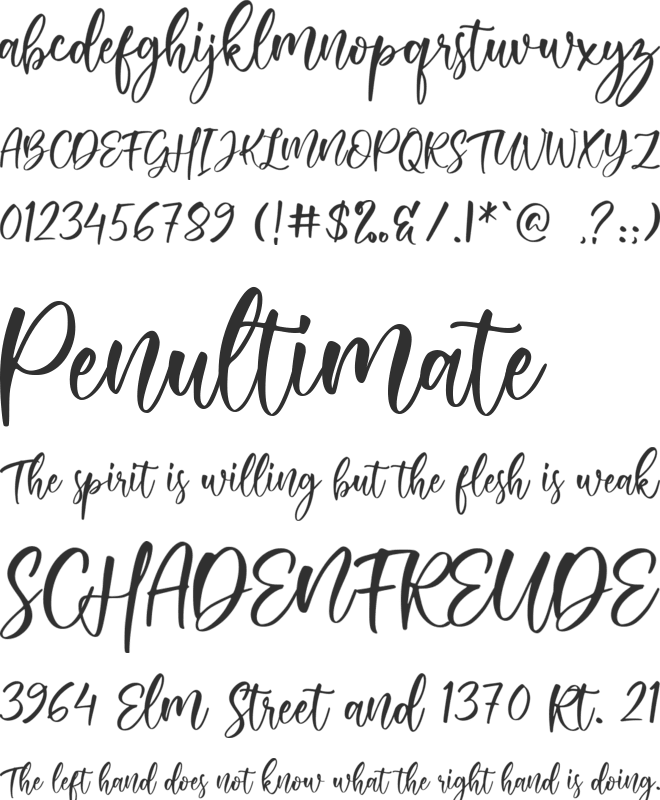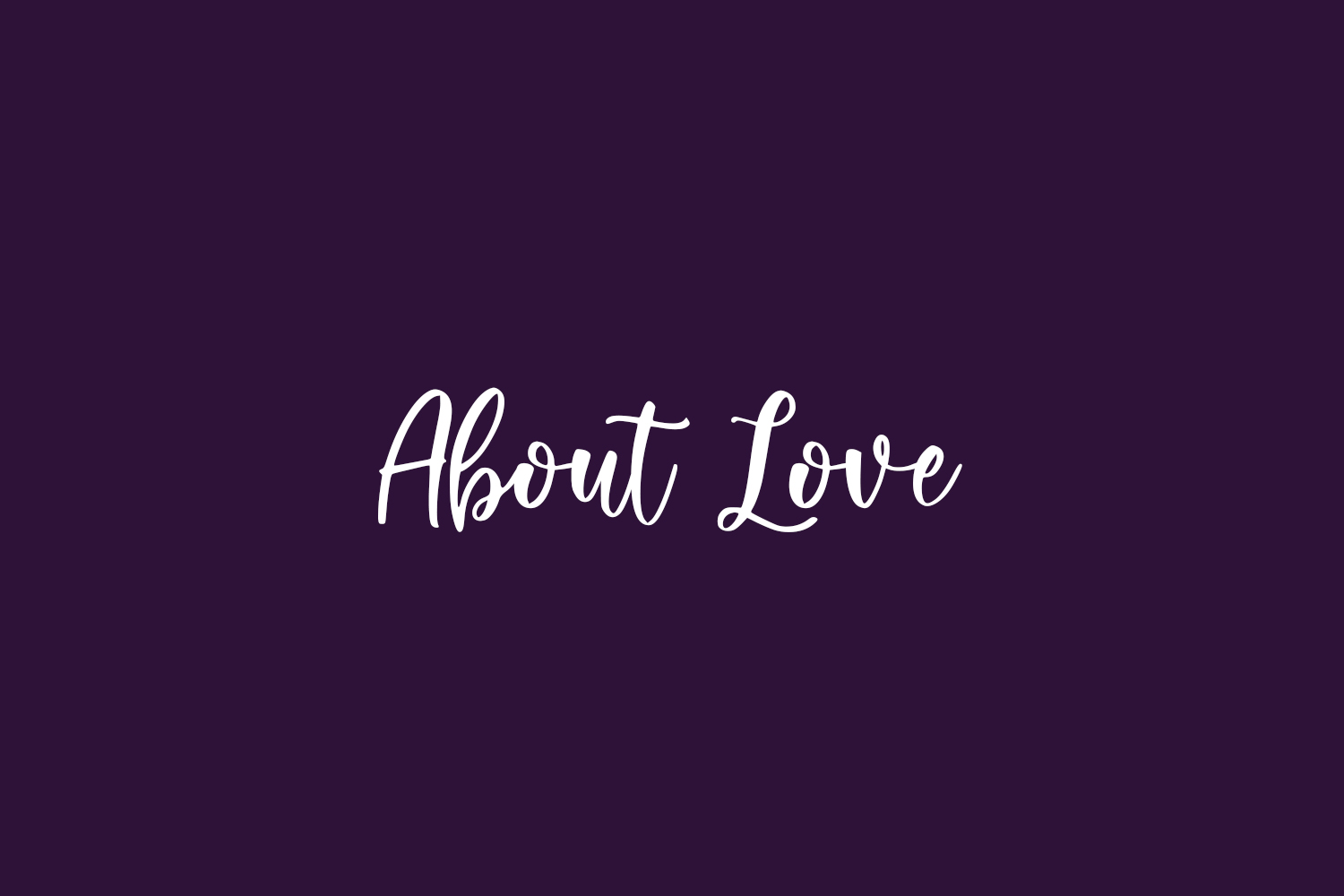
About Love Font
About Love Font - Perfect for weddings, valentine's day, or any romantic project. 739,817 downloads (61 yesterday) 15 comments. Every font is free to. Web 1 to 15 of 1341 results. Click to find the best 1,342 free fonts in the love style. Web explore our diverse collection of free love fonts. About love à € by raffasyad studio.
Perfect for weddings, valentine's day, or any romantic project. 739,817 downloads (61 yesterday) 15 comments. Click to find the best 1,342 free fonts in the love style. Web 1 to 15 of 1341 results. About love à € by raffasyad studio. Web explore our diverse collection of free love fonts. Every font is free to.
Click to find the best 1,342 free fonts in the love style. Every font is free to. Web explore our diverse collection of free love fonts. Perfect for weddings, valentine's day, or any romantic project. Web 1 to 15 of 1341 results. 739,817 downloads (61 yesterday) 15 comments. About love à € by raffasyad studio.
About love à € by raffasyad studio. Click to find the best 1,342 free fonts in the love style. Every font is free to. Web 1 to 15 of 1341 results. Perfect for weddings, valentine's day, or any romantic project.
Web explore our diverse collection of free love fonts. Every font is free to. 739,817 downloads (61 yesterday) 15 comments. Perfect for weddings, valentine's day, or any romantic project. Web 1 to 15 of 1341 results.
Click to find the best 1,342 free fonts in the love style. 739,817 downloads (61 yesterday) 15 comments. Web 1 to 15 of 1341 results. Every font is free to. About love à € by raffasyad studio.
About Love Font
Perfect for weddings, valentine's day, or any romantic project. 739,817 downloads (61 yesterday) 15 comments. About love à € by raffasyad studio. Every font is free to. Web 1 to 15 of 1341 results.
Every font is free to. About love à € by raffasyad studio. Click to find the best 1,342 free fonts in the love style. Web explore our diverse collection of free love fonts. 739,817 downloads (61 yesterday) 15 comments.
About love à € by raffasyad studio. Every font is free to. Click to find the best 1,342 free fonts in the love style. Web 1 to 15 of 1341 results. Web explore our diverse collection of free love fonts.
739,817 downloads (61 yesterday) 15 comments. Click to find the best 1,342 free fonts in the love style. Web 1 to 15 of 1341 results. Web explore our diverse collection of free love fonts. Every font is free to.
About love à € by raffasyad studio. 739,817 downloads (61 yesterday) 15 comments. Every font is free to. Web explore our diverse collection of free love fonts. Click to find the best 1,342 free fonts in the love style.
About love à € by raffasyad studio. Web 1 to 15 of 1341 results. 739,817 downloads (61 yesterday) 15 comments. Every font is free to. Click to find the best 1,342 free fonts in the love style.
Perfect For Weddings, Valentine's Day, Or Any Romantic Project.
739,817 downloads (61 yesterday) 15 comments. Web explore our diverse collection of free love fonts. Web 1 to 15 of 1341 results. Click to find the best 1,342 free fonts in the love style.
About Love À € By Raffasyad Studio.